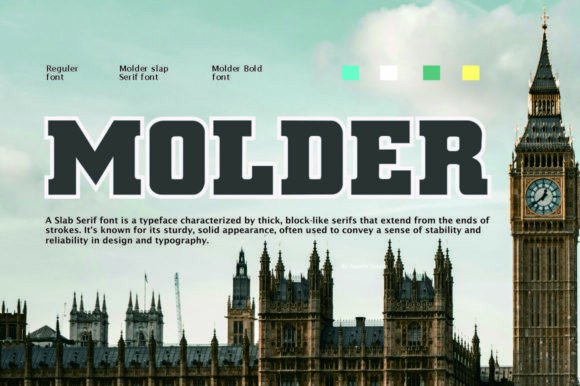
Molder: The Bold Slab Serif for Eye-Catching Branding
Why Molder is Perfect for Strong and Refined Campaign Graphics
Molder, a robust yet refined slab serif font, is the perfect choice for digital marketers, content creators, and social media managers looking to make a bold statement. With its commanding presence and clear, confident letterforms, Molder can elevate any brand identity and campaign visual.
Using Molder for High-Impact Social Media Graphics
When it comes to creating scroll-stopping visuals on platforms like Instagram, Pinterest, and Facebook, Molder stands out. Its strong, clean lines and modern aesthetic make it ideal for social media graphics that need to grab attention quickly. Whether you're designing a product teaser, a sale announcement, or an inspirational quote graphic, Molder's readability and visual impact ensure your message is clear and memorable.
Enhancing YouTube Thumbnails and Reels Covers with Molder
For YouTube thumbnails and reels covers, Molder's bold and refined style helps create a professional and engaging look. The font's clarity and strength make it easy to read even in small sizes, which is crucial for thumbnails and other small preview images. This makes Molder an excellent choice for video content that needs to stand out in a fast-scrolling feed.
Creating Memorable Brand Content with Molder
Molder's unique blend of robustness and refinement makes it a standout choice for brand content. Whether you're designing email headers, website banners, or landing pages, Molder helps establish a strong and consistent visual hierarchy. This not only enhances the overall design but also reinforces your brand's message, making it more impactful and memorable.
Optimizing Readability and Visual Consistency with Molder
One of the key strengths of Molder is its readability. Even in smaller sizes, such as on mobile screens or in fast-scrolling social feeds, Molder remains clear and legible. This makes it a versatile choice for a wide range of digital platforms, ensuring that your brand content is always accessible and engaging. By using Molder consistently across different channels, you can create a cohesive and professional brand identity.
Pairing Molder with Other Fonts for Maximum Impact
To further enhance the versatility of Molder, consider pairing it with other fonts. For example, combining Molder with a clean sans serif font for captions and body text can create a balanced and modern look. Alternatively, using a serif font for a more editorial feel can add a touch of sophistication to your designs. Experimenting with these combinations can help you find the perfect font pairing that aligns with your brand's personality and messaging.
Molder in Action: Real-World Examples and Use Cases
Imagine using Molder for a webinar banner where the title needs to be both eye-catching and authoritative. Or, picture it in a content series where each post features a bold, Molder-driven headline. Molder can also be used for online shop promotions, where the font's strength and clarity can help highlight special offers and product launches. These real-world examples demonstrate how Molder can be a powerful tool in your design assets toolkit.
Conclusion: Elevate Your Brand with Molder
In summary, Molder is a premium font that combines strength and style, making it an excellent choice for marketers, content creators, and designers who want to create impactful and memorable brand content. Whether you're working on social media graphics, digital ads, or campaign visuals, Molder's robust and refined letterforms will help you command attention and convey your message with clarity and confidence. Start using Molder today and see the difference it can make in your visual communication.